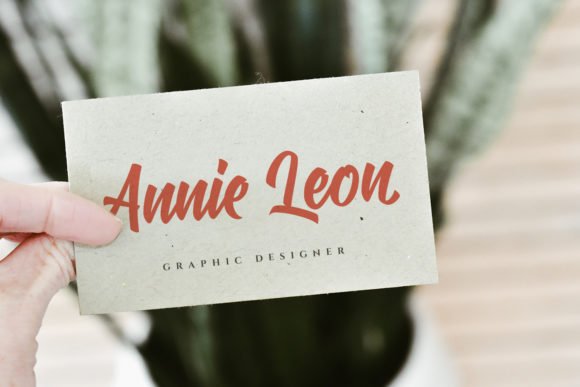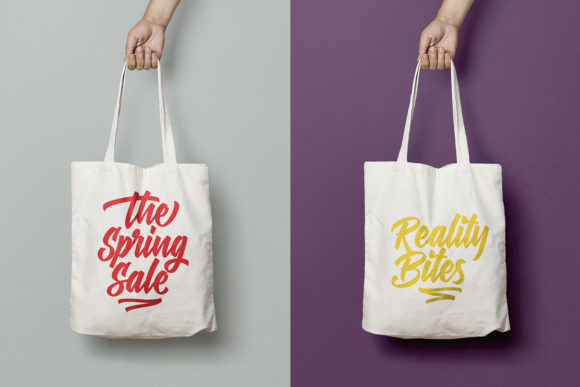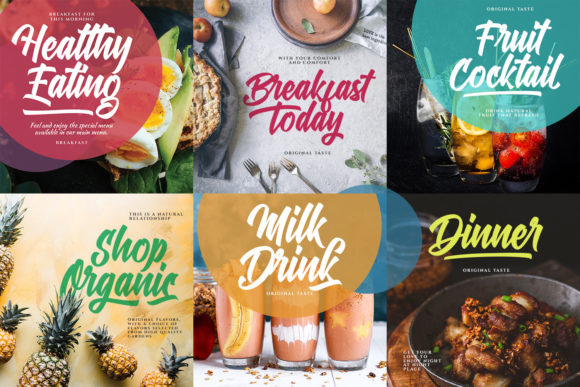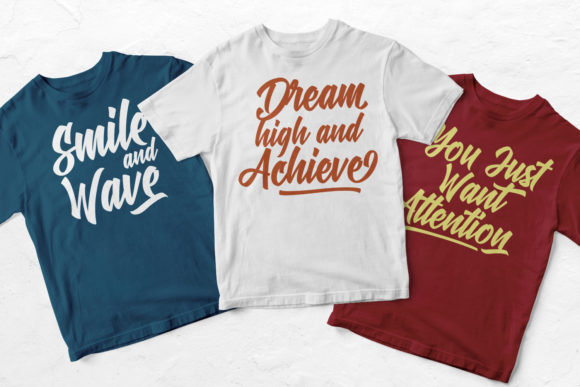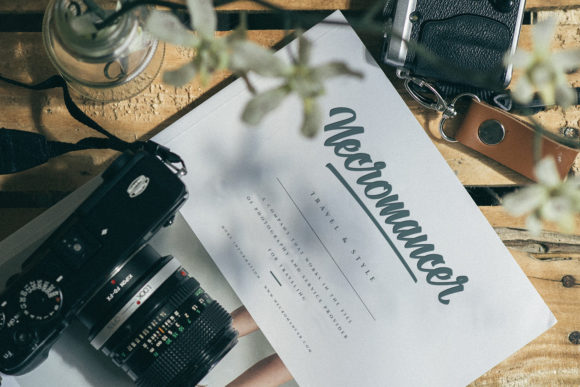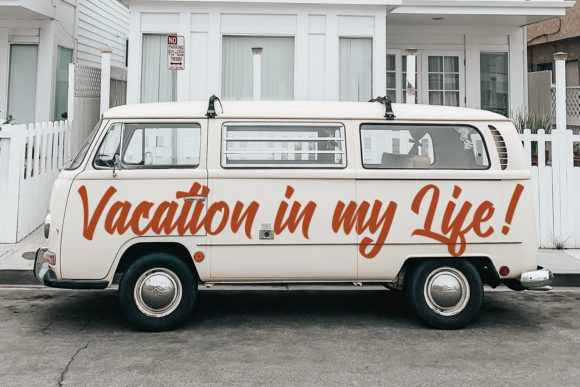
Introducing Chamberton Font: Elevate Your Crafting Ideas with Confidence and Charm
Are you a designer, crafter, or DIY enthusiast looking for a font that can add a touch of personality and elegance to your projects? Look no further than Chamberton Font, a stunning handwritten font that’s perfect for delivering messages with confidence, authenticity, and charm.
What is Chamberton Font?
Chamberton Font is a beautiful and bold handwritten font that’s designed to make a statement. Its unique and elegant lettering style makes it perfect for a wide range of crafting ideas, from cards and invitations to branding, labels, and more.
Key Features of Chamberton Font
- Handwritten style: Chamberton Font boasts a beautiful, handwritten style that’s perfect for adding a personal touch to your projects.
- Bold and elegant: The font’s bold and elegant lettering style makes it perfect for delivering messages with confidence and authenticity.
- Versatile: Chamberton Font is versatile and can be used for a wide range of crafting ideas, from cards and invitations to branding, labels, and more.
- Easy to read: Despite its bold style, Chamberton Font is easy to read, making it perfect for use in a variety of contexts.
Uses for Chamberton Font
Chamberton Font is perfect for a wide range of crafting ideas, including:
- Cards and invitations: Add a touch of elegance and sophistication to your cards and invitations with Chamberton Font.
- Branding: Use Chamberton Font to create a unique and memorable brand identity for your business or product.
- Labels: Add a personal touch to your labels and packaging with Chamberton Font.
- Stationery: Use Chamberton Font to create beautiful and elegant stationery, including letterheads, notebooks, and more.
- Digital projects: Chamberton Font is perfect for use in digital projects, including social media graphics, blog posts, and more.
Why Choose Chamberton Font?
There are many reasons why Chamberton Font is a great choice for designers and crafters. Here are just a few:
- Unique style: Chamberton Font has a unique and elegant style that’s sure to make your projects stand out.
- High-quality: Chamberton Font is a high-quality font that’s designed to produce crisp and clear results.
Tips for Using Chamberton Font
Here are a few tips for using Chamberton Font:
- Use it sparingly: Chamberton Font is a bold font, so use it sparingly to add emphasis and interest to your projects.
- Pair it with other fonts: Chamberton Font pairs well with other fonts, so don’t be afraid to experiment with different combinations.
- Experiment with colors: Chamberton Font looks great in a variety of colors, so experiment with different colors to find the one that works best for your project.
Chamberton Font is a beautiful and bold handwritten font that’s perfect for designers and crafters looking to add a touch of elegance and sophistication to their projects. With its unique style, ease of use, and high-quality design, Chamberton Font is a great choice for anyone looking to elevate their crafting ideas with confidence and charm.